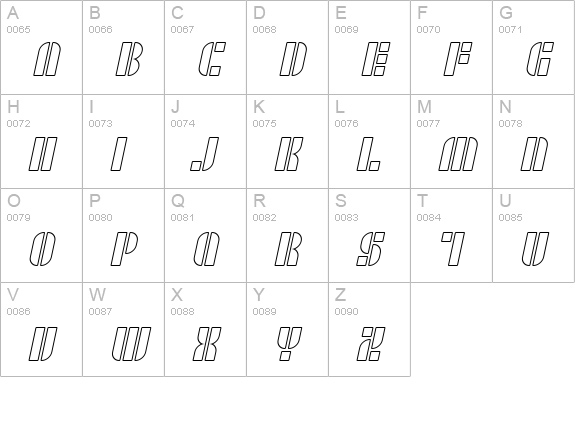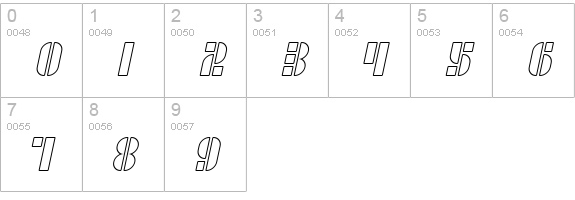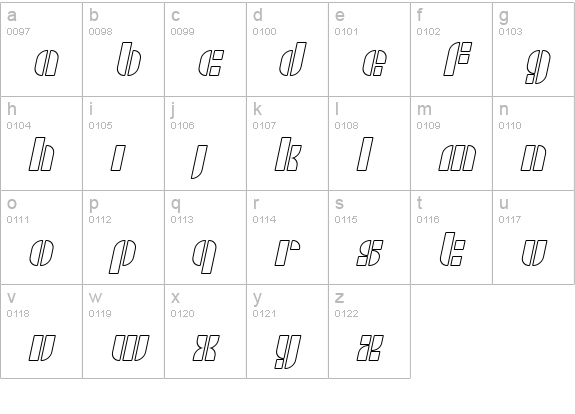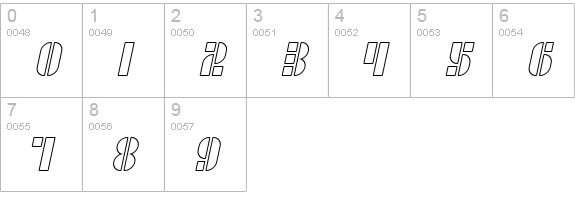
SF RetroSplice Outline Font Details
SF RetroSplice Outline font is a captivating and nostalgic typeface that takes you on a journey back to the glorious days of the past. Its unique blend of retro and futuristic elements makes it perfect for any project that requires a touch of old-school charm with a modern twist. This font is meticulously designed with attention to detail, ensuring that each character is beautifully crafted and exudes a sense of timeless elegance. The clean and crisp outlines create a striking visual impact, making SF RetroSplice Outline font stand out in any design. One of the best things about SF RetroSplice Outline font is that it is free. Yes, you read that right! This extraordinary font is freely available to download at FontsMarket.com. Now, you can add a touch of vintage flair to your designs without breaking the bank. Whether you are working on a retro-inspired poster, a logo for a hipster coffee shop, or a nostalgic branding project, SF RetroSplice Outline font will elevate your design to new heights. Its versatility allows it to shine in both print and digital mediums, making it an essential addition to any designer's toolkit. With SF RetroSplice Outline font, you can effortlessly capture the essence of the past while embracing the possibilities of the future. Its timeless appeal and free availability provide endless opportunities for creativity and expression. Download SF RetroSplice Outline font today from FontsMarket.com and embark on a design journey that seamlessly blends the best of both worlds. Let this captivating font transport you to a bygone era while infusing your projects with a contemporary edge. Don't miss out on this amazing opportunity to enhance your designs with a font that is both visually stunning and freely available.